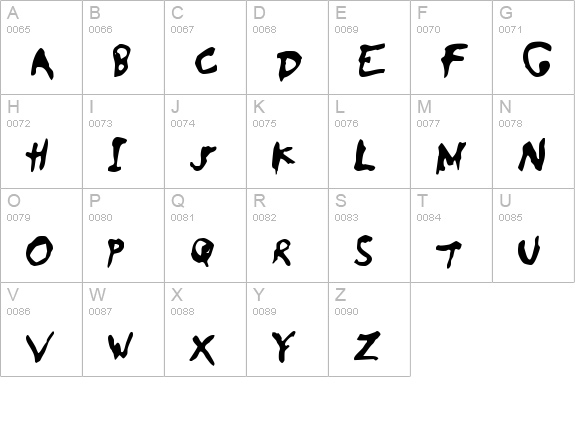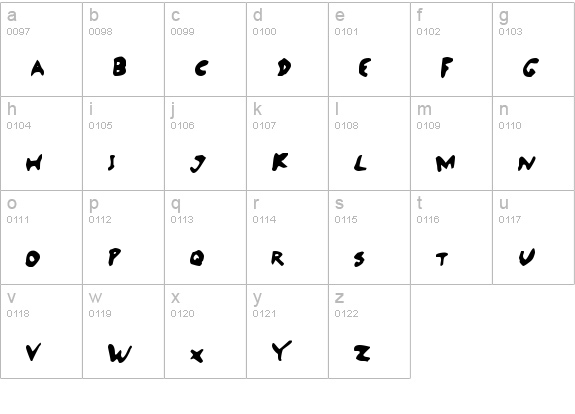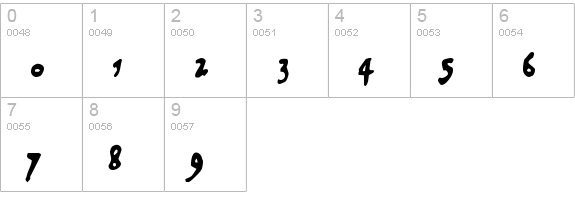
SaladeDeFruitsPomme Font Details
Introducing SaladeDeFruitsPomme font, a delightful and refreshing typeface that will add a touch of fruity goodness to your designs! With its playful and organic shapes, this font is perfect for projects that require a lighthearted and whimsical touch. SaladeDeFruitsPomme font is a true feast for the eyes, capturing the essence of juicy apples with its crisp and vibrant letterforms. Each character is carefully crafted to resemble the delectable curves and contours of a perfectly ripe fruit, making it a delightful choice for food-related designs, branding, packaging, and more. One of the most enticing features of SaladeDeFruitsPomme font is its versatility. Whether you're looking to create eye-catching headlines, charming logos, or playful social media graphics, this font has got you covered. Its clean and legible design ensures readability across various sizes and mediums, making it a reliable choice for both print and digital projects. But what makes SaladeDeFruitsPomme font even more appealing is that it is freely available to download at FontsMarket.com. Yes, you read that right! This delectable font can be yours without spending a single penny. FontsMarket.com offers a wide range of high-quality fonts, and SaladeDeFruitsPomme is just one of the many gems waiting to be discovered. So why wait? Indulge in the sweetness of SaladeDeFruitsPomme font and let your creativity soar. Whether you're a seasoned designer or just starting out, this font is sure to add a delightful twist to your projects. Don't miss the chance to download this free font at FontsMarket.com and bring a taste of fruity fun to your next design endeavor.